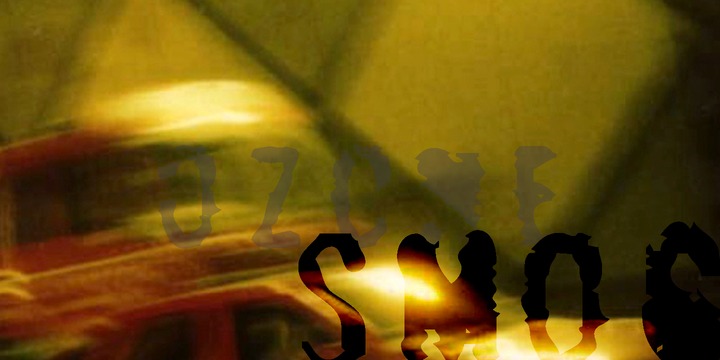
SB Basement
by SelfBuild Type Foundry
SB Basement was designed for a leaflet on traffic pollution and the letterforms are based on labels found on carboard boxes from a warehouse.